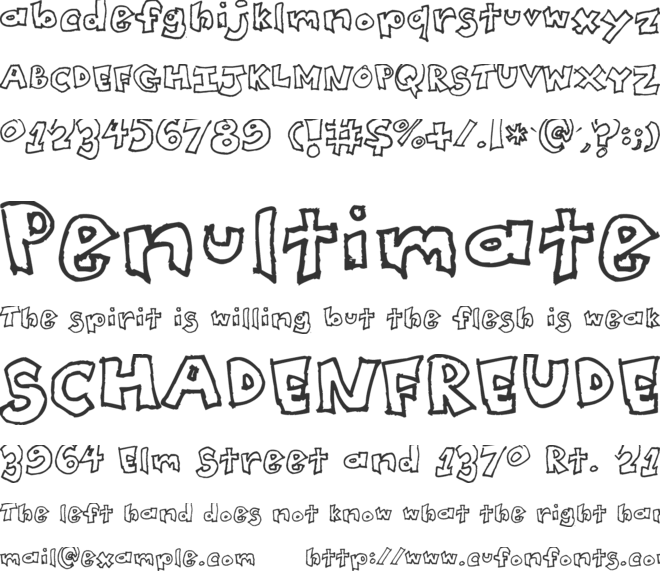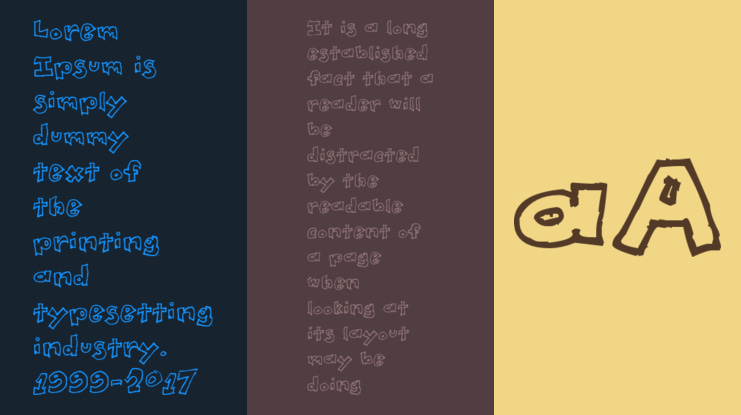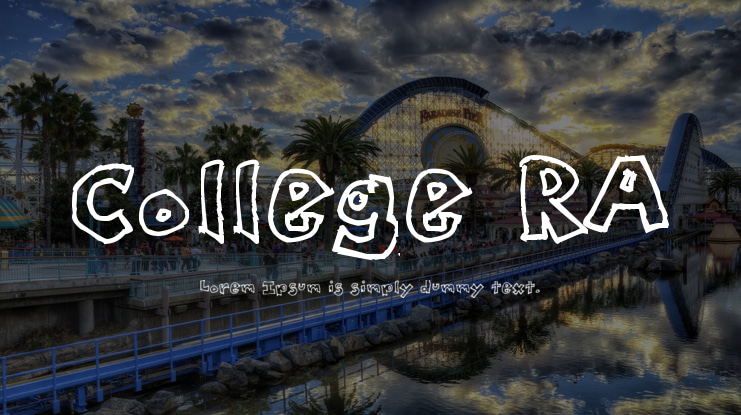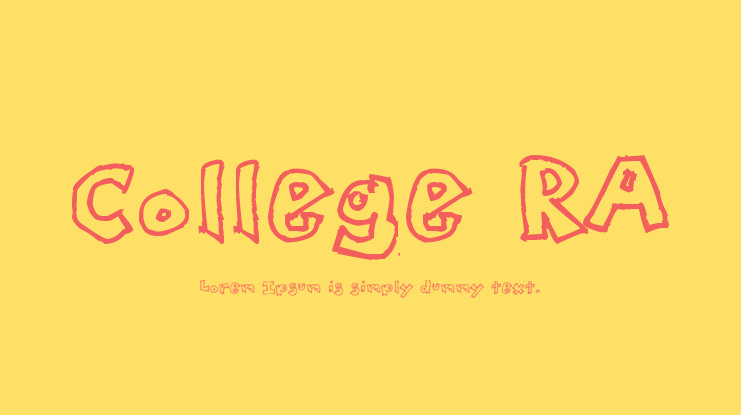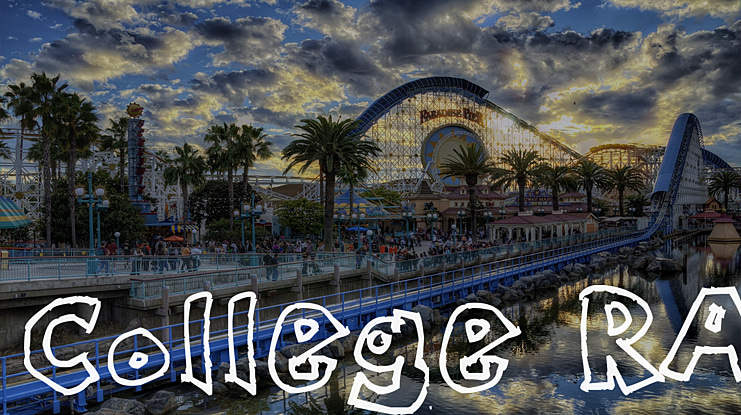
College RA Font
The handwriting of a former College RA, this font will give your sign authenticity and make it stand out from the rest. Hope you like it.